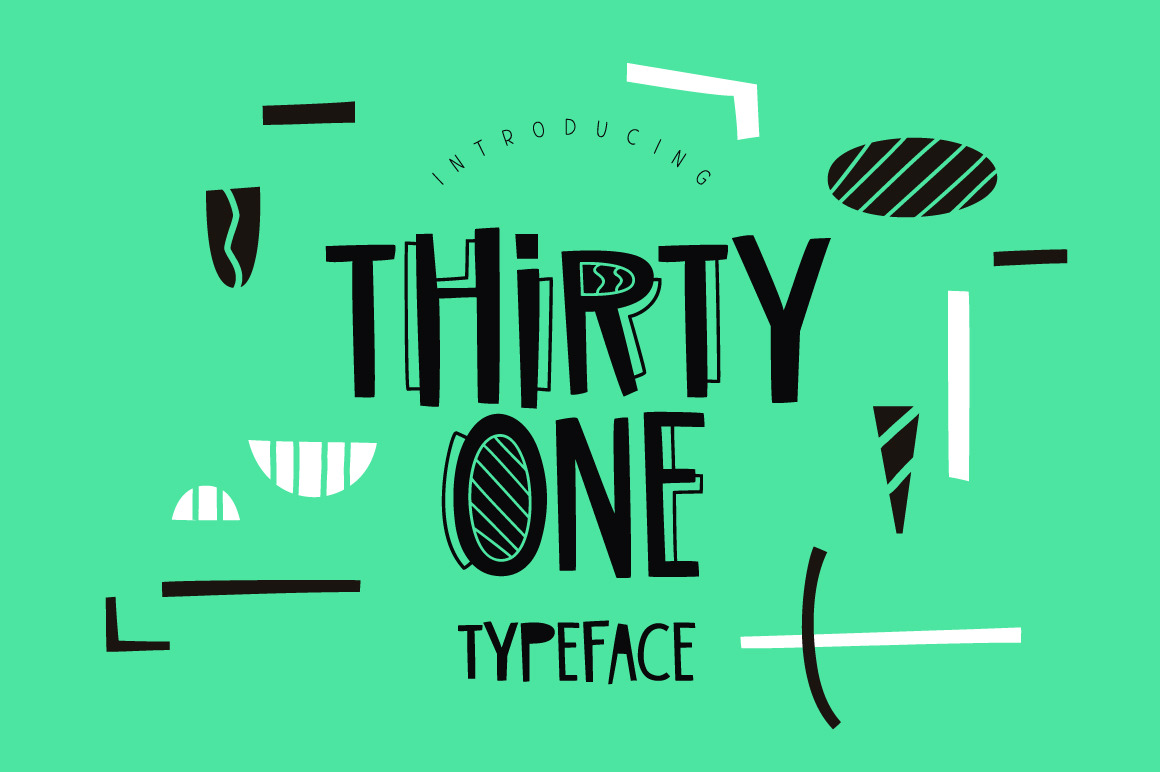
Thirty One Typeface
Thirty One Typeface comes with all caps uppercase and lowercase characters, large range of punctuation, numerals, cyrillic characters and multilingual support.
Perfect for logos, quotes, posters, branding projects, product packaging, t-shirt, book cover and applicable for any graphic design.